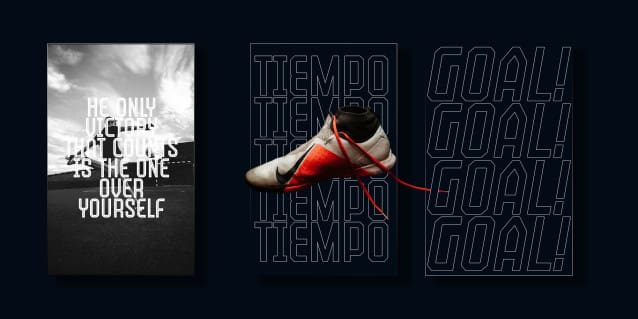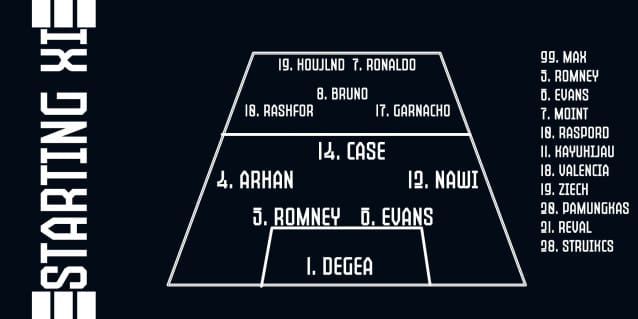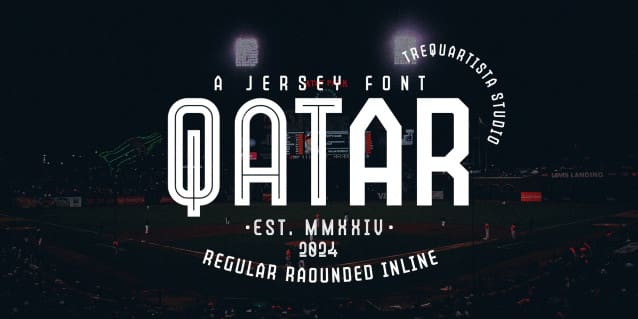
Qatar Display Font
Qatar Display Font, a condensed sport . Qatar has 3 Style with sans serif and matching italics. This typeface has a clean and athletic look, glyphs and extensive Latin script support. Qatar is tall, vibrant with sharp sans serifs and competitive appearance, therefore excellent to use for headers, logos, captions and posters, especially for the sports branding industry, but just as good for any other projects.